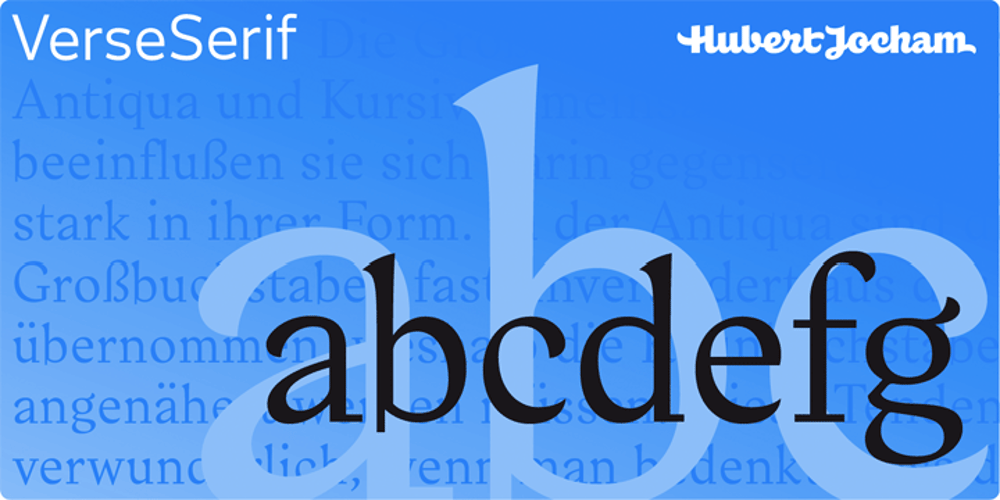
Verse Serif Font Family was designed by Hubert Jocham and published by Hubert Jocham Type. Verse Serif contains 14 styles and family package options. In 2006 the art director of Emotion, a women’s psychology magazine, asked me to design a copy typeface for them. Before I actually got the job I started to work on a serif. I wanted it to be feminine but still clear and modern. On one hand there are the floral round elements and on the other hand the angular serifs. In the composition I wanted the two extremes to work together. All the other elements had to be harmonized. The proportions needed to match the magazine’s requirements. The ascenders and descenders are short enough to work in narrow columns but long enough to work in small sizes. As you can imagine, the emotion-job never happened. Verse is now a serif and a san-serif with 7 weights with italics and smallcaps. In copy you should not get heavier than Heavy. Extrabold and Ultrabold work best in display.